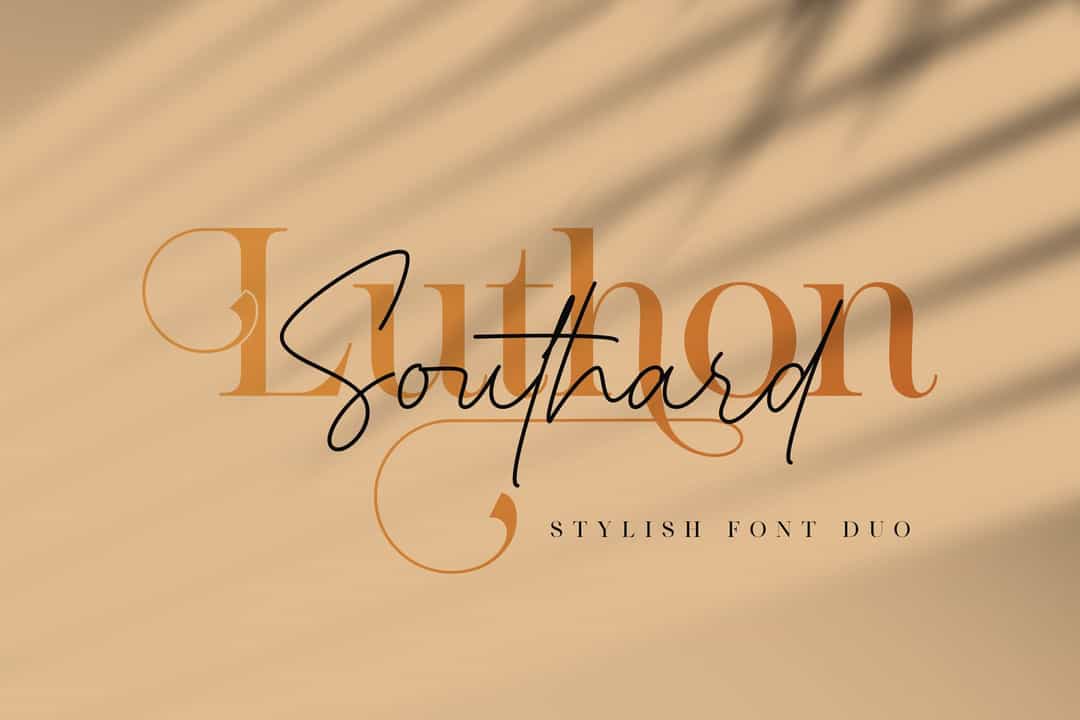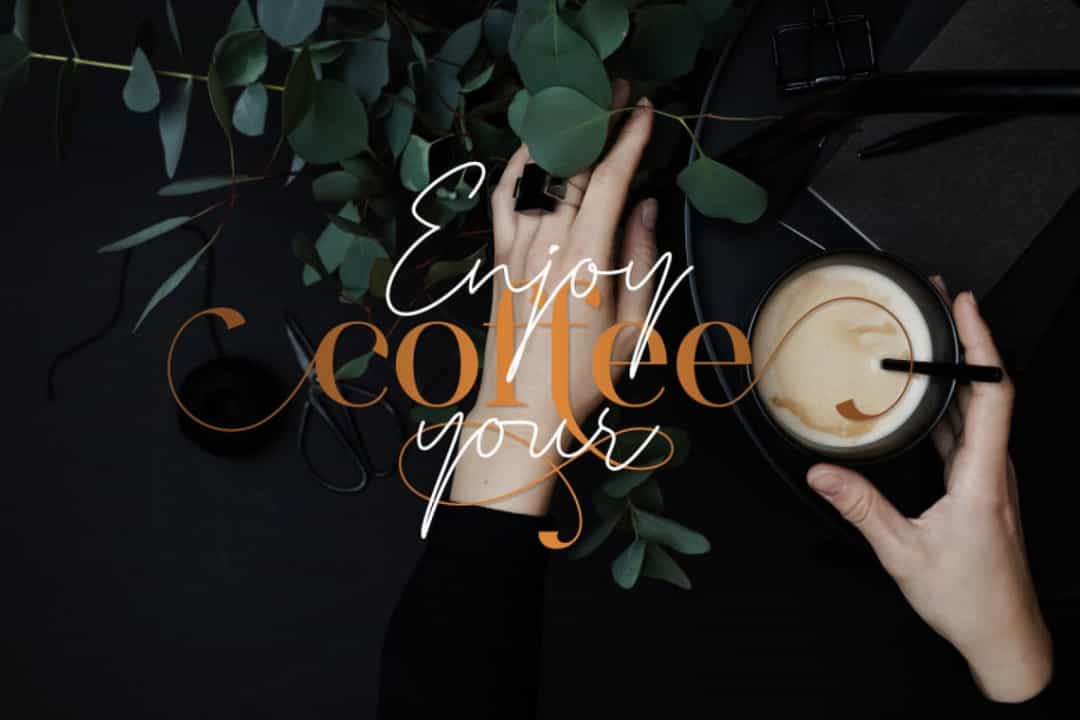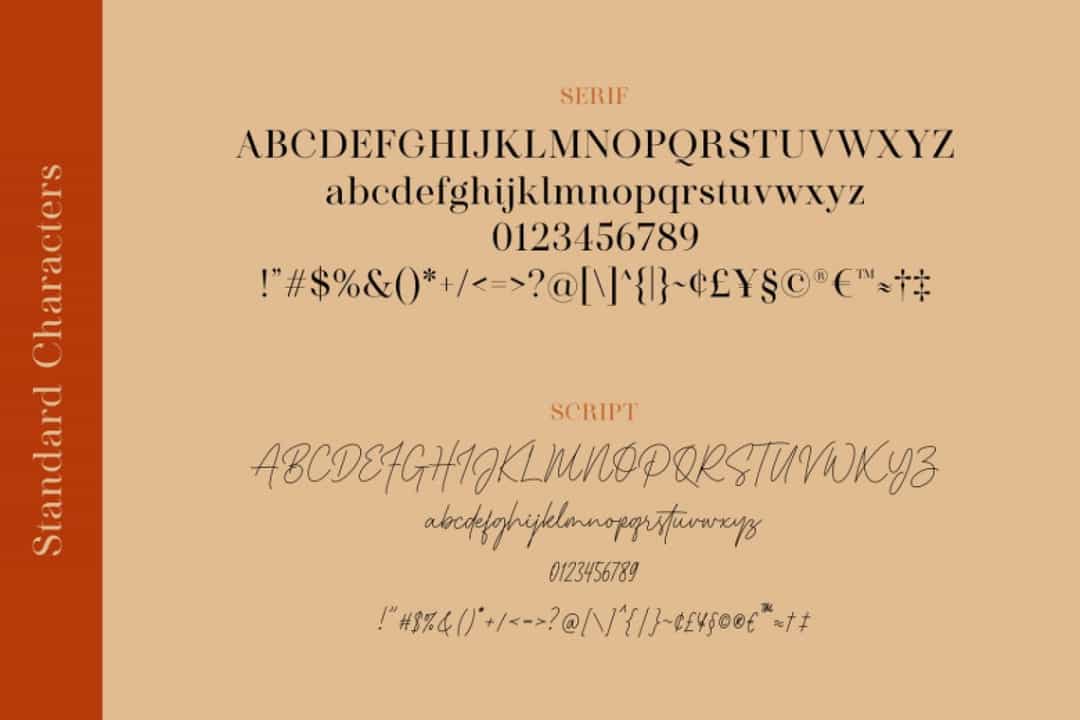
Luthon Southard Font is an amazing combination font (Stylish Serif and Monoline Script). Perfect for packaging products as well as branding projects, magazines, social media pages and much more, incorporate this font in your creative projects and watch how they flourish!